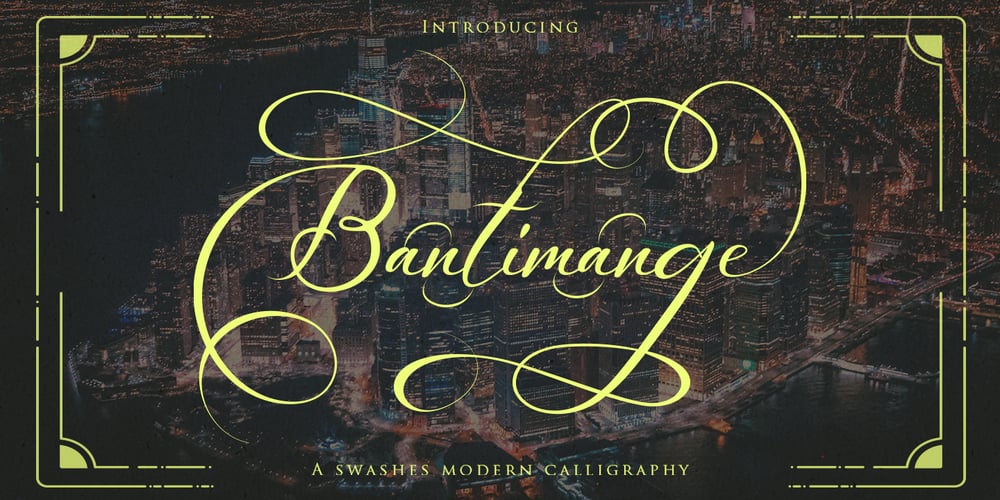
Bantimang script Font Family was designed by Nasrullah and published by Sulthan Studio. Bantimang script contains 2 styles and family package options. Script calligraphy an elegant new font! This font is specially created for those of you who need a touch of elegance to design your projects next with perfect results and amazing.Bantimange Script A very beautiful and interesting script, and comes with a perfect line for use for various purposes. Like titles, signatures, logos, correspondence, wedding invitations, letterheads, nameplate, labels, bulletins, posters, badges, Branding, Greeting Cards, etc.BantimangeScript is built with OpenType features and includes start and end. It comes with OpenType Stylistice set, Initial, swashes, ligatures and everything to add a touch to your design and also supports other languages 🙂